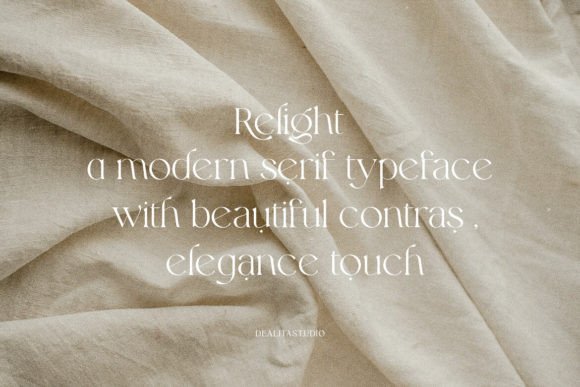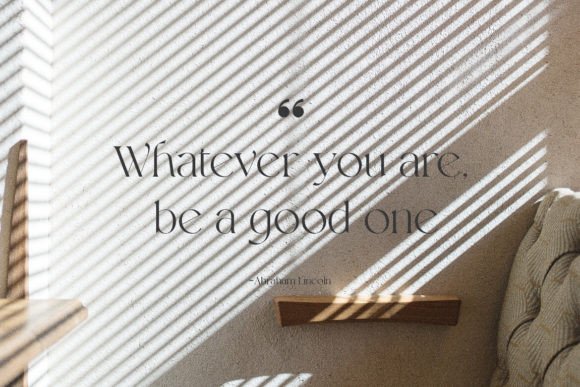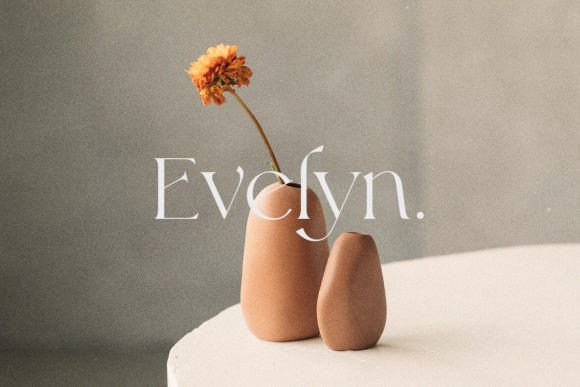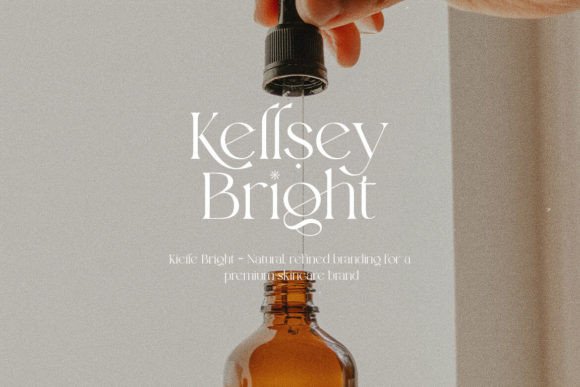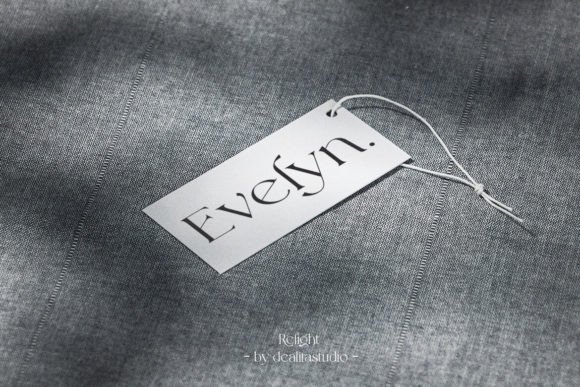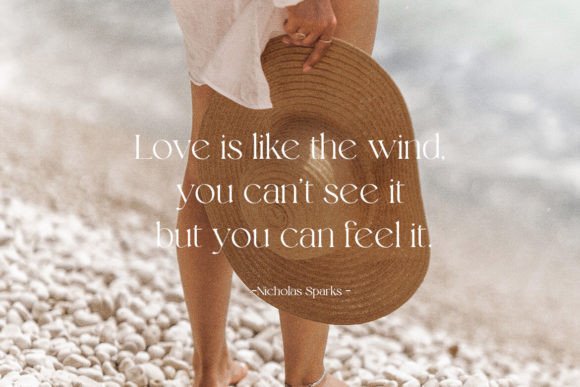
Introduction to Relight Font
Imagine you’re working on a high-end fashion magazine, and you need the perfect font to make your headlines stand out. The words are flowing, but something’s missing. That’s when you stumble upon the perfect design resource – Relight Font. This chic and elegant display modern serif font is designed to add a touch of sophistication to your creative project.
Relight Font is more than just a beautiful font – it’s a design game-changer. With its beautiful contrast and high-quality design, it’s the perfect addition to any fashion-themed project. Whether you’re working on a logo, title, or magazine layout, Relight Font is sure to elevate your design to the next level.
What sets Relight Font apart is its versatility and high-quality design. Available for free download, this font is perfect for designers who want to add a touch of elegance to their projects without breaking the bank. Plus, its transparent background makes it easy to use on any design resource.
Key Features of Relight Font
- Unique and stylish design with a high-quality finish, making it perfect for creative projects.
- Perfect for designers, artists, and creatives looking for a distinctive and eye-catching design resource.
- Relight Font is a versatile and modern design element that can be used in a variety of contexts, from branding to typography.
Honest Review: Relight Font
I recently had the opportunity to work with the Relight Font, and I must say it’s been a game-changer for my creative projects. This high-quality font is perfect for designers looking for a unique and stylish design resource.
- ✨ High-quality design: The Relight Font is extremely detailed and well-crafted, making it perfect for a variety of creative projects.
- ✨ Transparent background: The transparent background option is a huge plus, allowing for seamless integration into any design.
- ⚠️ Limited character set: While the font is high-quality, the character set is somewhat limited, which can be a problem for designers working on complex projects.
- ⚠️ Not suitable for small text: The font’s design makes it difficult to read when used for small text, which can be a limitation for designers working on projects that require a lot of fine print.
Overall, I’m really impressed with the Relight Font. While it may have a few limitations, it’s a high-quality design resource that’s perfect for a wide range of creative projects. I would definitely recommend it to fellow designers looking for a unique and stylish font.
The Relight Font is a versatile design resource that can be used in a variety of creative projects, including graphic design, digital art, and even web design. Some common use cases include creating logos, typography-based designs, and adding text to images. With its high-quality design and transparent background, the Relight Font is a valuable addition to any design toolkit.